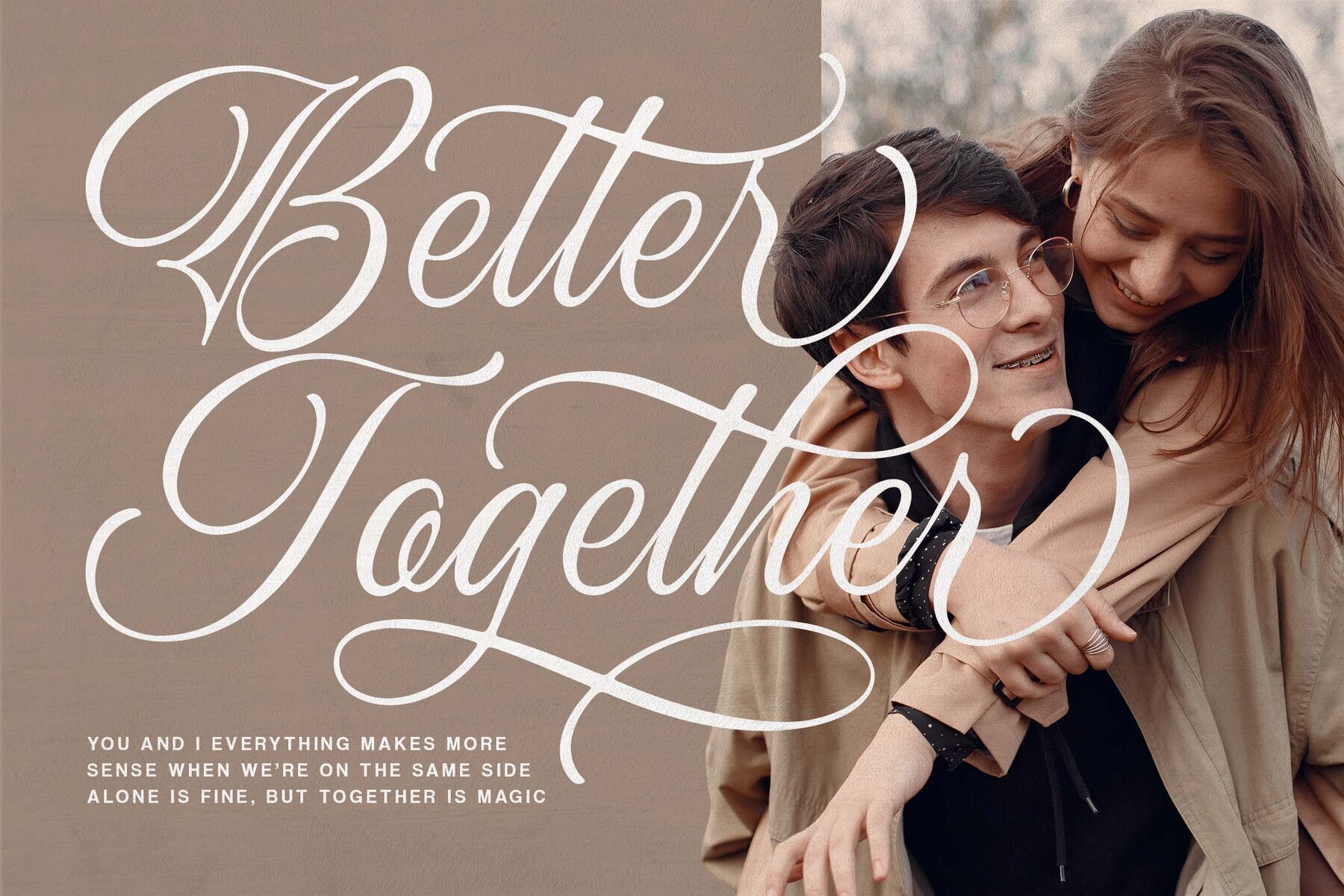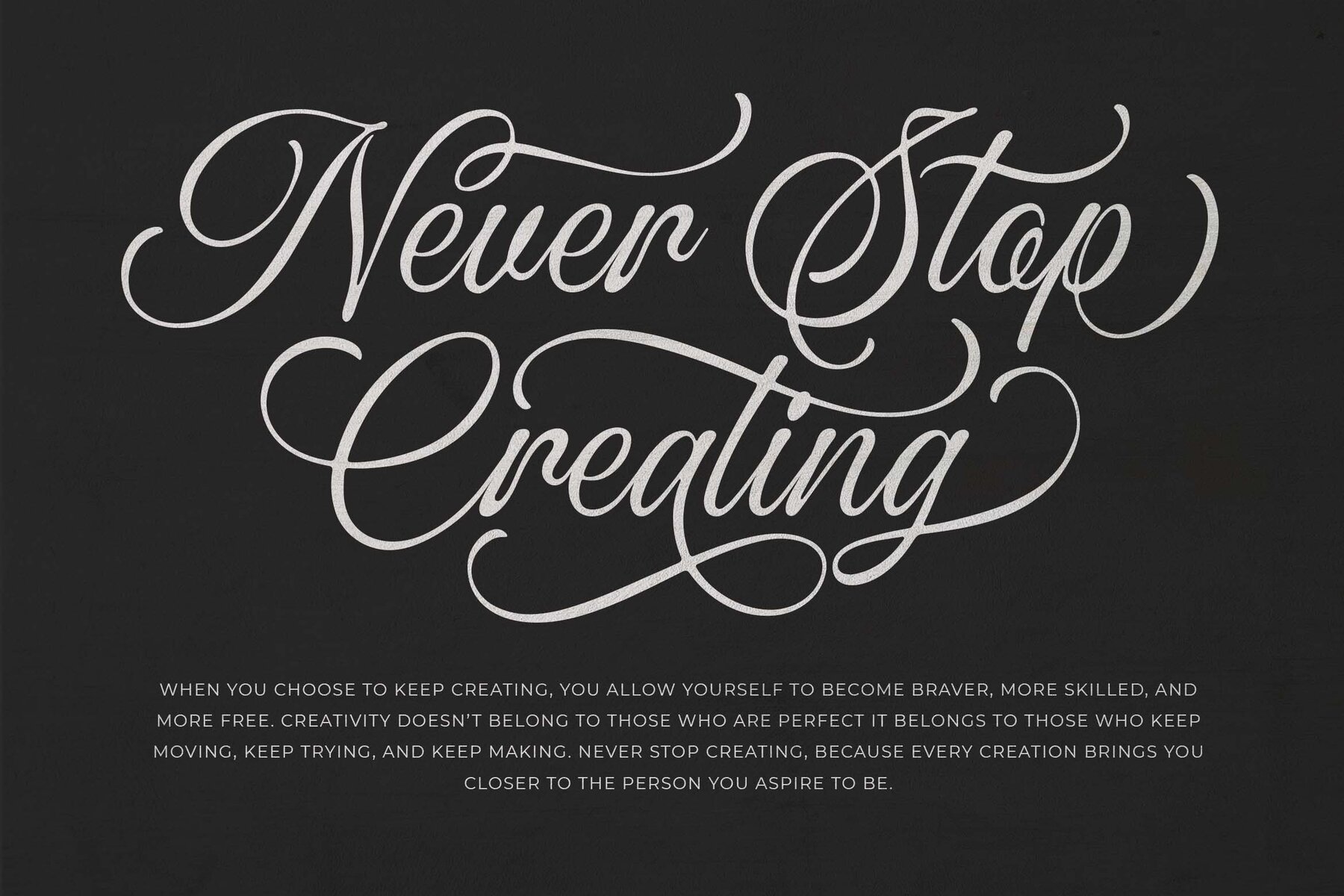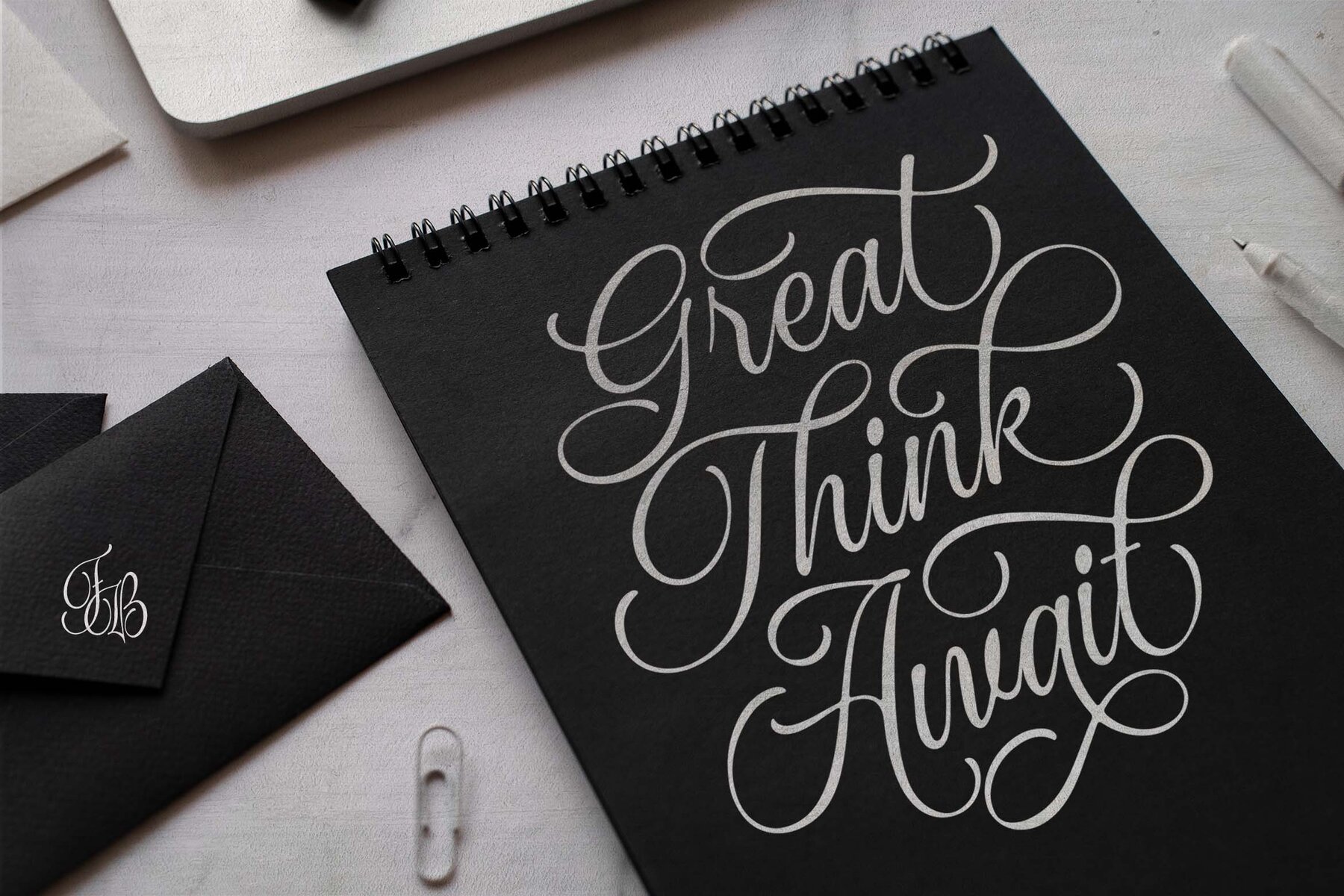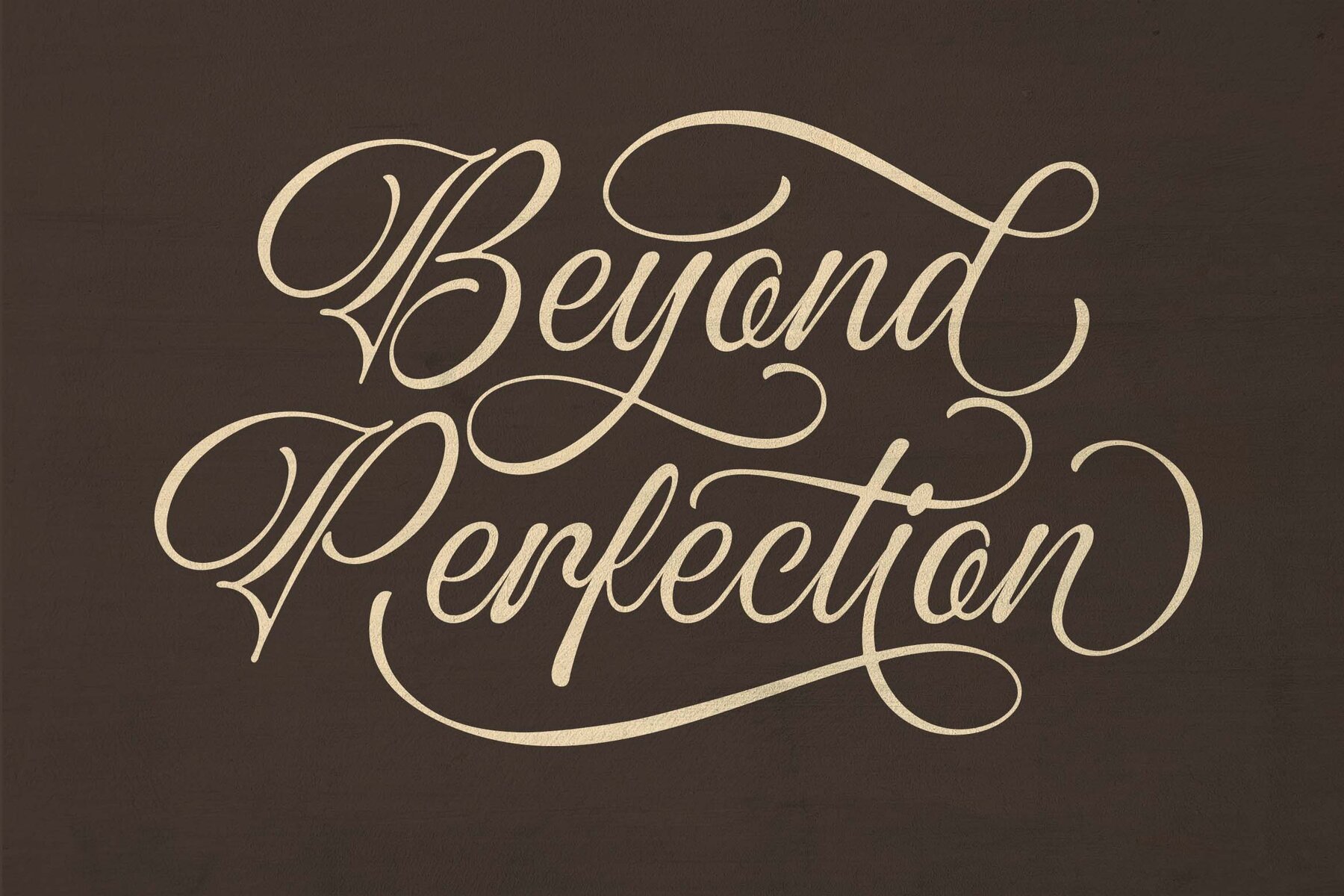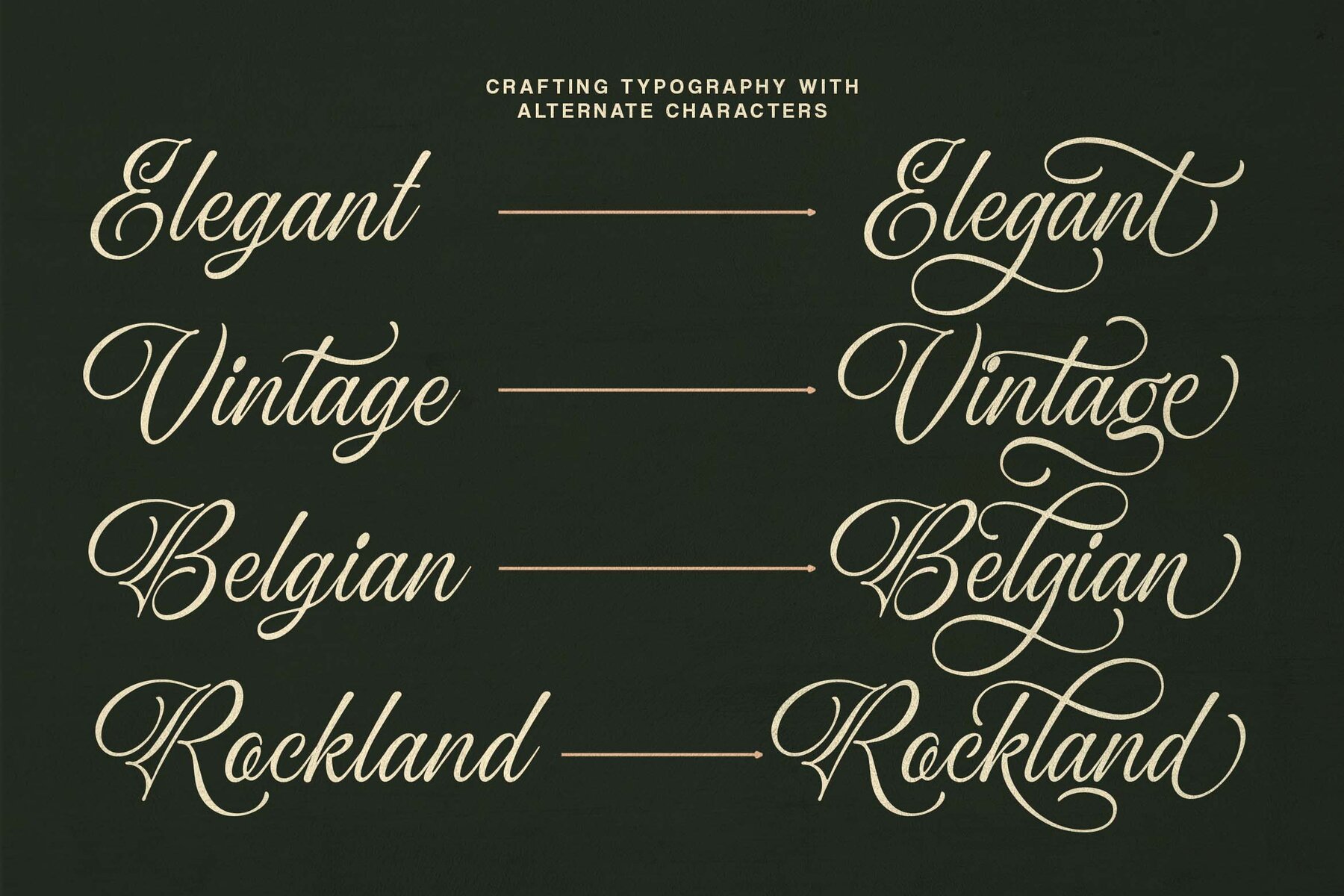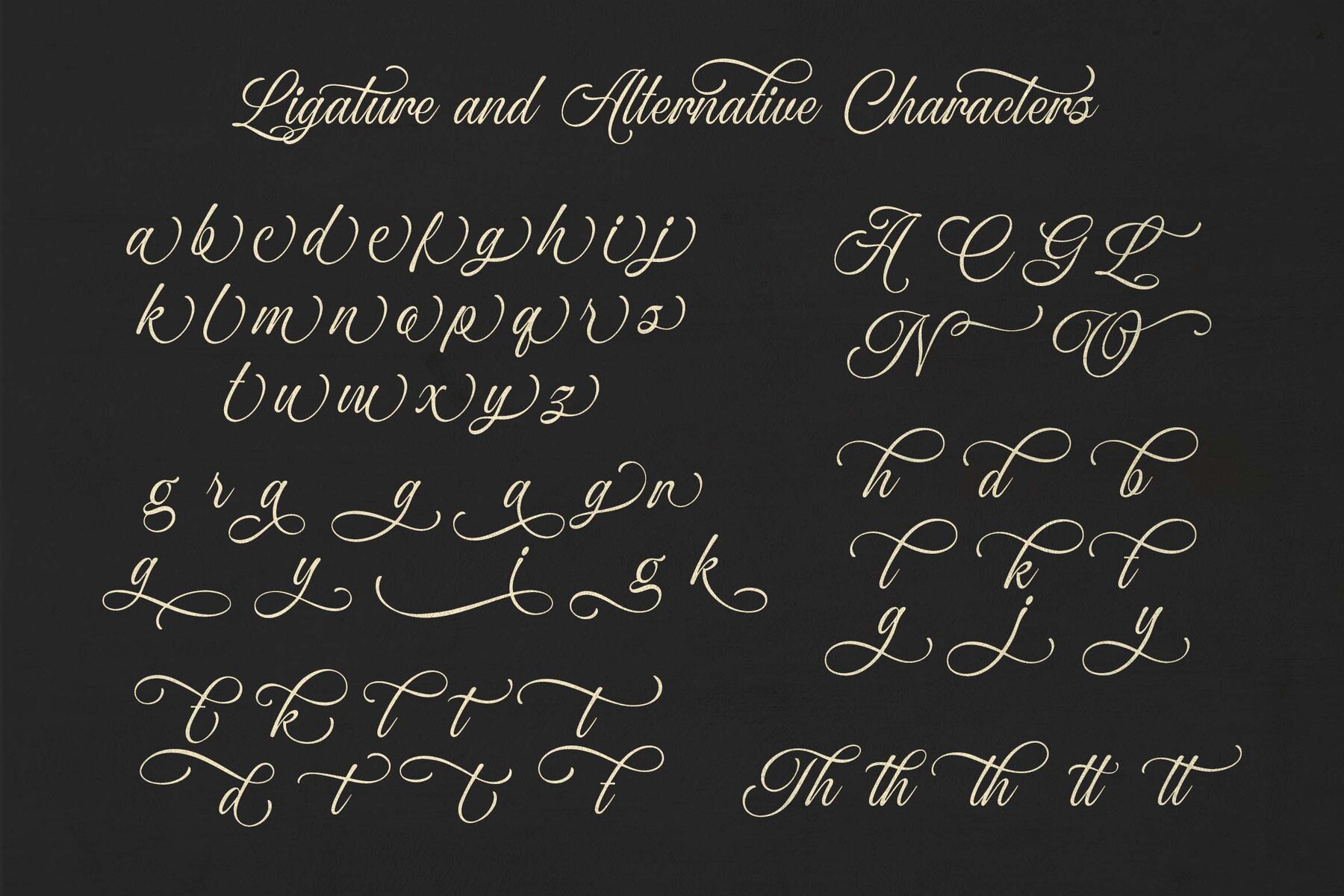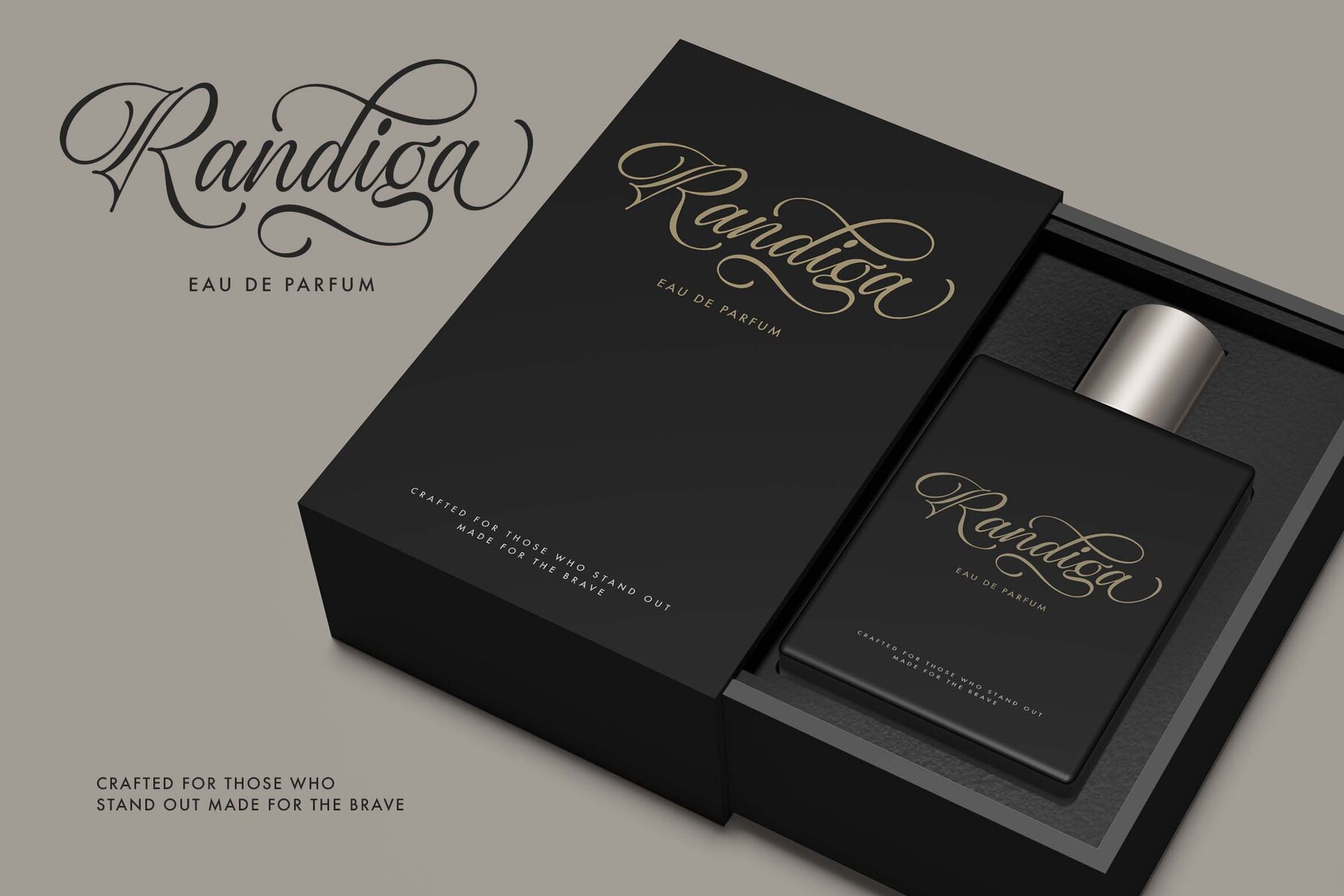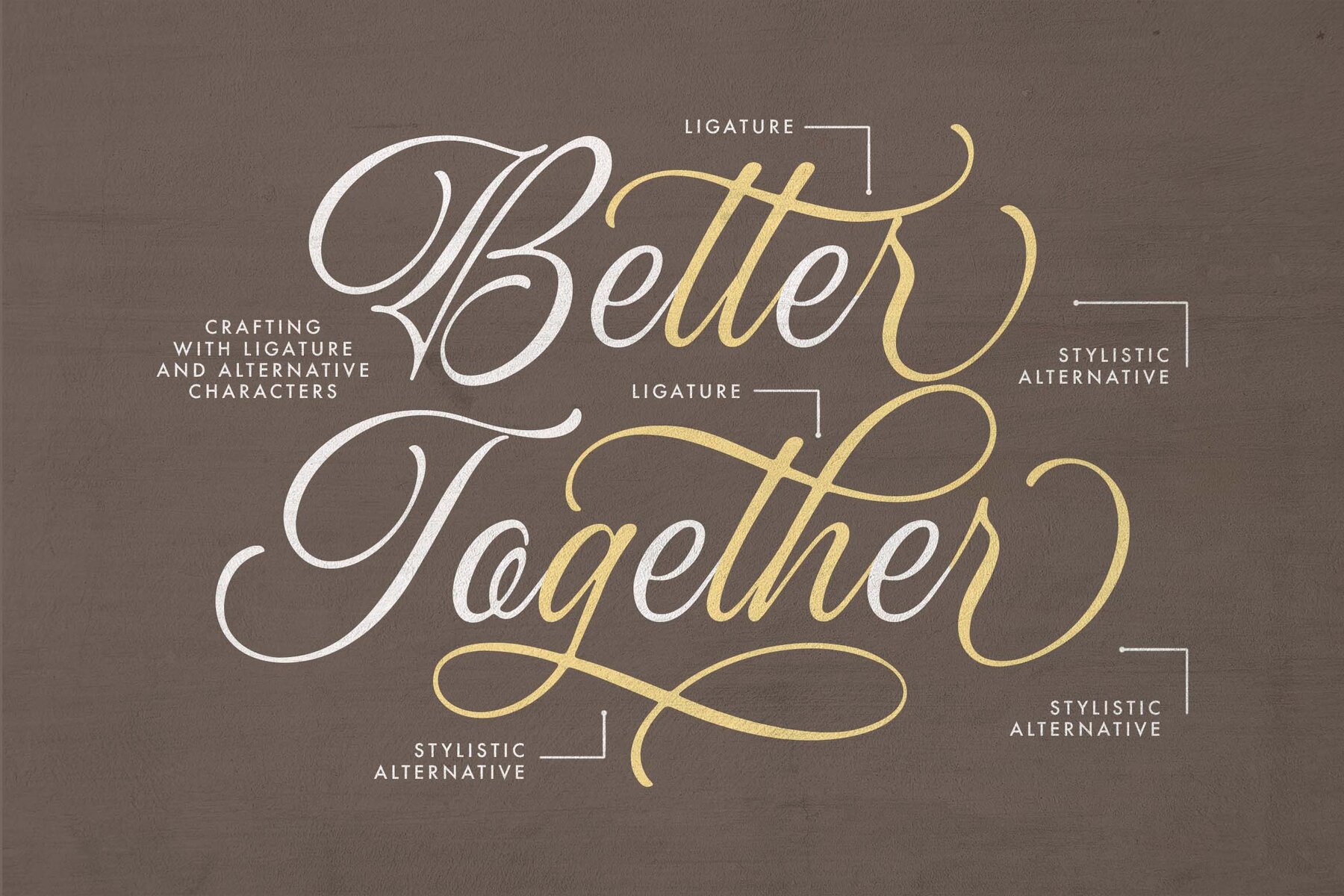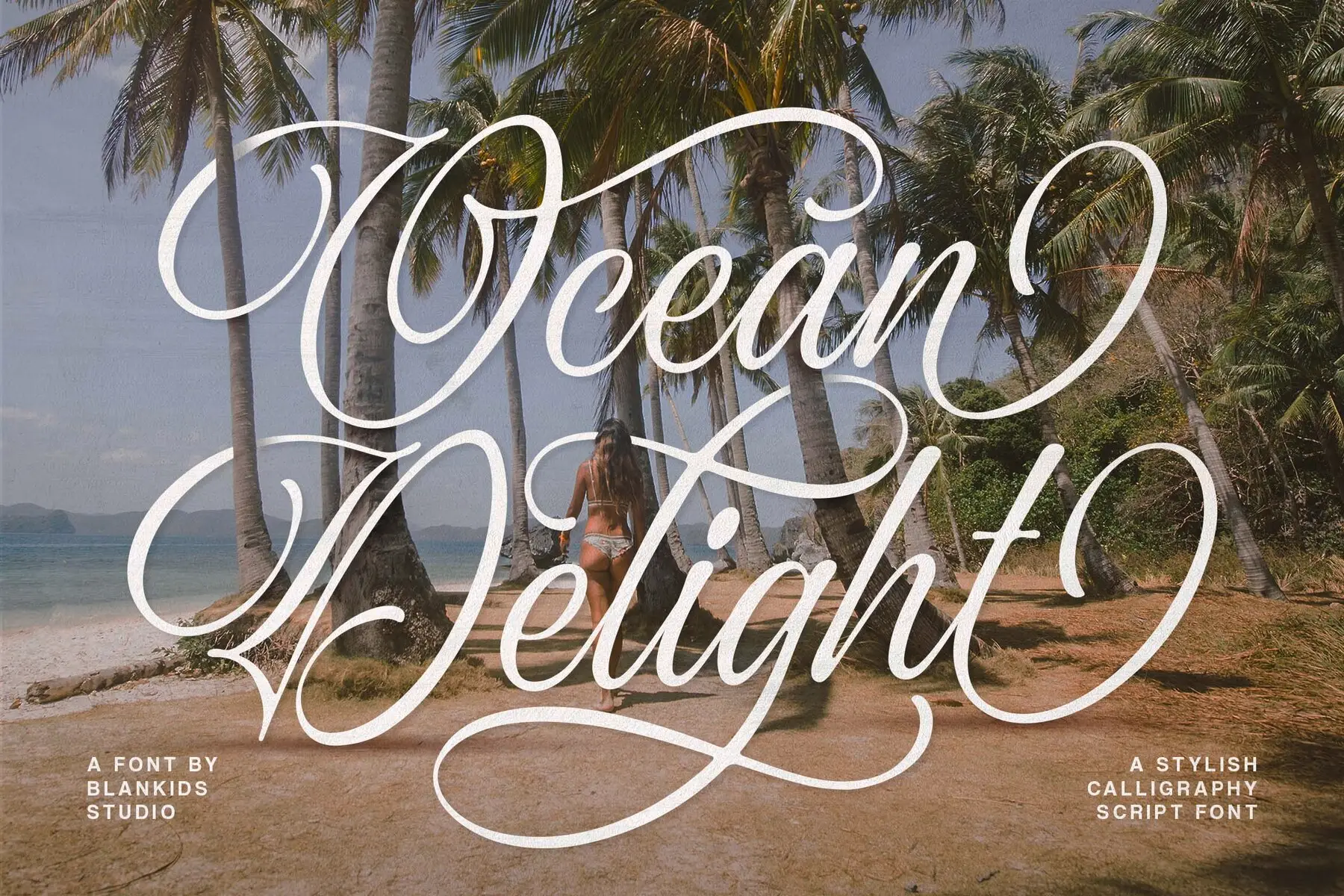
Ocean Delight Font
Ocean Delight Regular
Ocean Delight is an expressive calligraphy script font, marked by smooth curves and refined letterforms. Rooted in classic calligraphy yet modern in attitude, this typeface imparts luxury and romance to any composition. Its graceful structure and balanced proportions offer a distinct charm well suited to projects that require elegance without excess. Inspired by the tranquility of tropical coastlines, Ocean Delight introduces visual rhythm to headlines and branding. The decorative alternates and swashes encourage customization, allowing designers to shape a unique visual narrative. Whether used for editorial design, signature logos, or upscale packaging, this font lends sophistication and calm through every curve.Ocean Delight: Expressive Calligraphy Script With Graceful Movement